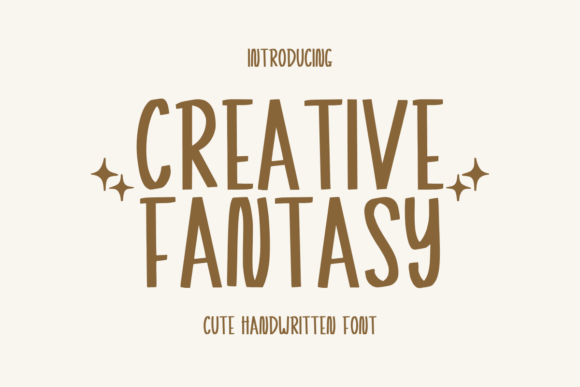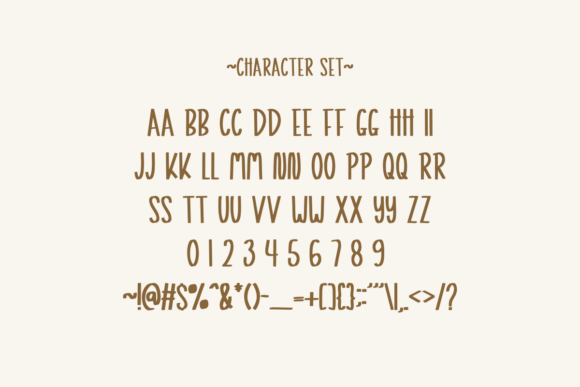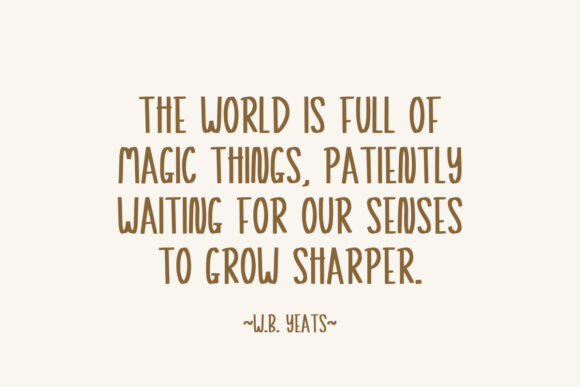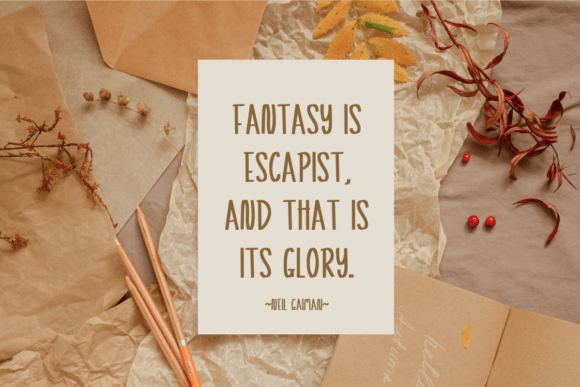
Creative Fantasy Font
About the Creative Fantasy Font
Elevate your designs with Creative Fantasy Font, a font that combines sophistication with readability. Creative Fantasy is a playful handwritten font that’s perfect for crafts, planners, KDP, stickers, greeting cards, and more. With its cute and friendly style, it works great for Cricut, sublimation, and creative DIY projects. Ideal for crafters, designers, and makers!
Its friendly, whimsical style shines in headlines, short-form content, and branding for businesses targeting a younger demographic or those focused on crafts and creativity. Consider using it for logos, social media graphics, packaging for children’s products, or short promotional text. Avoid using it for large blocks of body text or UI elements where readability is paramount; its informal nature might hinder usability.
Pairing Creative Fantasy with a clean sans-serif like Open Sans for body copy creates a strong visual contrast and balanced readability. Alternatively, a classic serif font such as Garamond could add a touch of sophistication, grounding the playful nature of Creative Fantasy. For a more whimsical approach, consider pairing it with a simple script font like Pacifico.
The font’s overall personality is best described as cheerful and approachable, making it ideal for projects needing a light-hearted and friendly aesthetic.
Creative Fantasy Font Usage Examples
Creative Fantasy Font Example